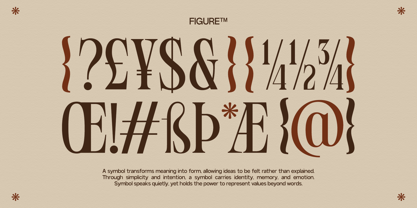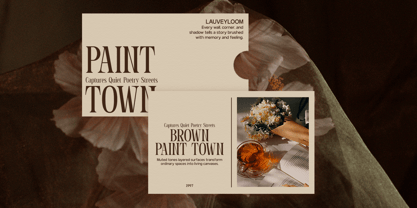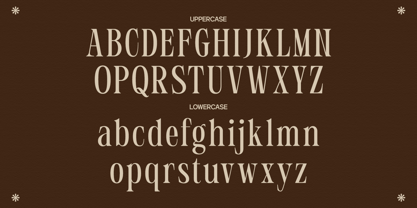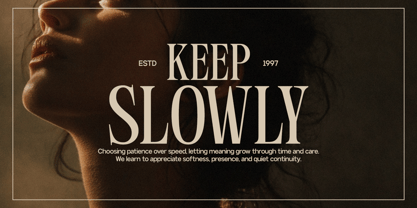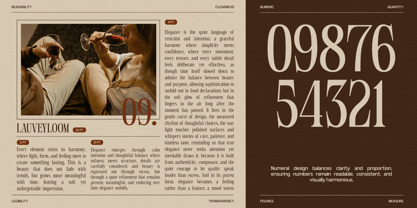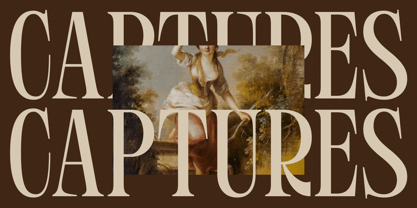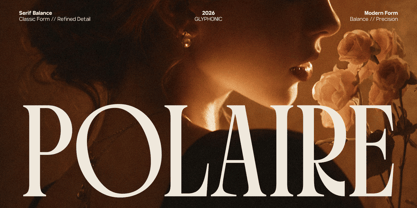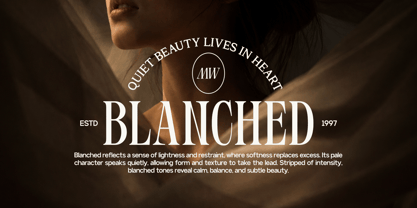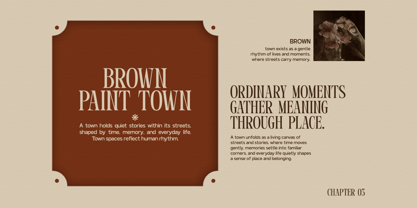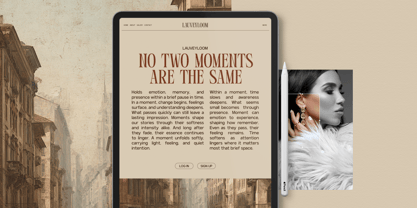
GC Polaire
The GC Polaire Font Family was designed by Muhammad Hafiizh Solana and published by Onyx Studio. GC Polaire contains 2 styles and family package options. More about this family
GC Polaire – Serif Display Condensed is a contemporary serif display typeface crafted to deliver elegance, presence, and refined intensity. Defined by its condensed proportions and sharp serif details, Polaire creates a striking visual impact while maintaining sophistication and clarity. Built with precise structure and confident vertical rhythm, GC Polaire is designed to command attention in headlines, branding, and high-impact compositions. Its narrow stance allows for powerful typographic statements without overwhelming space—making it ideal for editorial titles, luxury packaging, fashion branding, posters, and modern visual identities. Balancing classic serif elegance with a bold display attitude, GC Polaire offers strong character and dramatic presence while remaining polished and controlled. Whether used for large-scale headlines or refined typographic accents, it provides a distinctive foundation built for visual authority and style. Features: - Uppercase & Lowercase - Numbers & Punctuation - Condensed Display Proportions - Sharp & Refined Serif Construction - Multilingual Support Bring striking elegance, condensed power, and modern refinement into your design with GC Polaire – Serif Display Condensed.